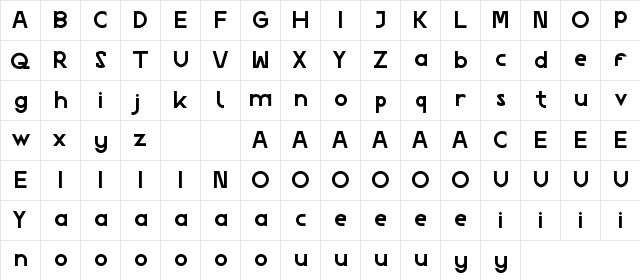
Social Trend Demo Regular
| Foundry | Edric Studio |
| Designer | Renata & Sarah Suci P |
Design Context for Social Trend Demo Typeface
Social Trend Demo is a composed and adaptable typeface that performs quietly and consistently across a wide range of design contexts.
Pro Tip: Use Social Trend Demo in both headline and body roles to test its range before committing to a single application.